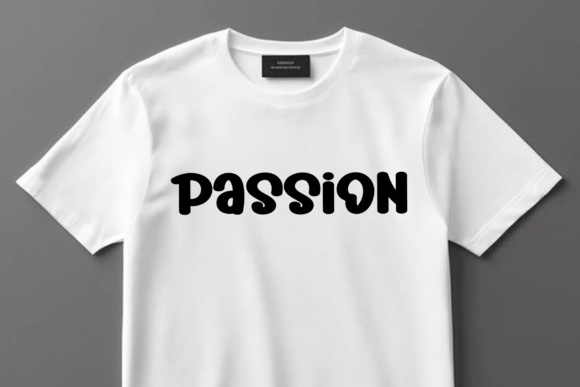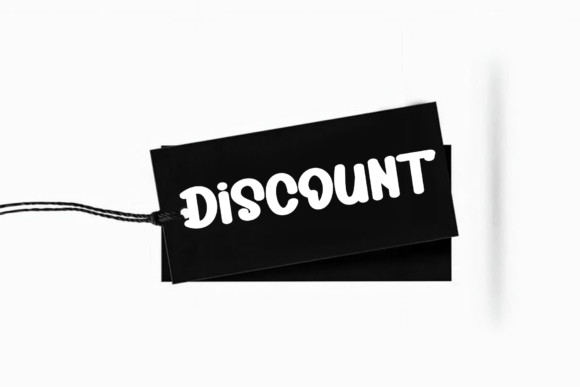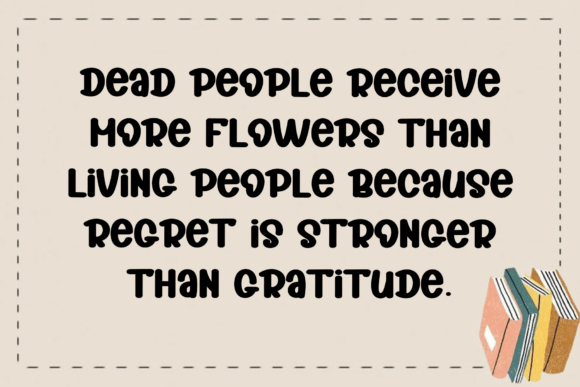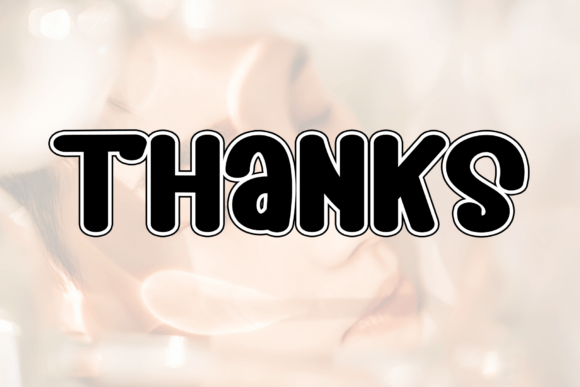
The Magic of Handwritten Fonts: Unveiling Beauty Font
Do you remember that moment when you stumbled upon the perfect font for your design project? The excitement, the thrill, the sense of accomplishment? It’s a feeling that every designer knows and loves. For me, it was the moment I discovered Beauty Font, a lovely and timeless handwritten font that adds a touch of elegance to any design.
Beauty Font is more than just a font – it’s a statement piece that can elevate your branding, logos, and quotes to the next level. Its unique and beautiful touch will make your design come alive, captivating the attention of your audience. Whether you’re a seasoned designer or just starting out, Beauty Font is a valuable asset that can take your designs to new heights.
Key Features of “Beauty Font”
- Font Family: A unique, high-end sans-serif font designed for luxury and sophistication.
- Unique Characteristics: Features subtle rounded edges, elegant curves, and a refined, high-end aesthetic.
Beauty Font Review
Overall, I’m quite impressed with Beauty Font. It’s a beautifully crafted font that’s perfect for designers and non-designers alike. ✨
- Unique Design: Beauty Font has a distinctive style that sets it apart from other fonts.
- High-Quality: The font is crisp and clear, making it perfect for print and digital use.
- Easy to Read: The font is well-balanced and easy to read, even at smaller sizes.
- Supports Multiple Languages: Beauty Font supports a wide range of languages, making it a great option for global projects.
However, like any font, Beauty Font has its limitations. ✨
- Not Ideal for Body Text: While the font is beautiful, it’s not the best choice for large blocks of body text. It can be a bit overwhelming.
- Limited Availability: Beauty Font is not as widely available as some other fonts, which can make it harder to use in certain situations.
- Not Suitable for Low-Resolution Screens: The font’s intricate design can make it difficult to read on low-resolution screens.
Overall, I’d highly recommend Beauty Font for any project where you want to make a statement. It’s a beautiful, high-quality font that’s perfect for headings, titles, and other display text. Just be mindful of its limitations and use it wisely.
Beauty Font is commonly used in:
- Beauty and wellness branding.
- Product packaging and labeling.
- Advertising and marketing materials.